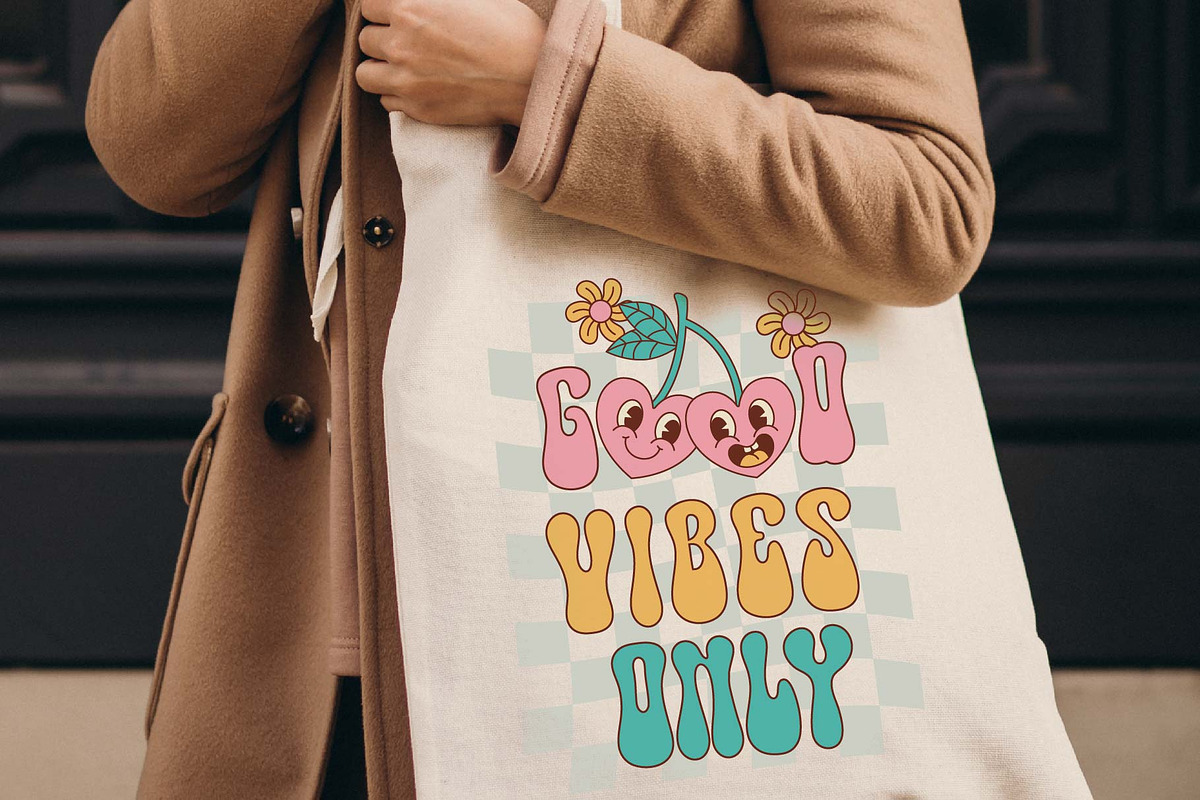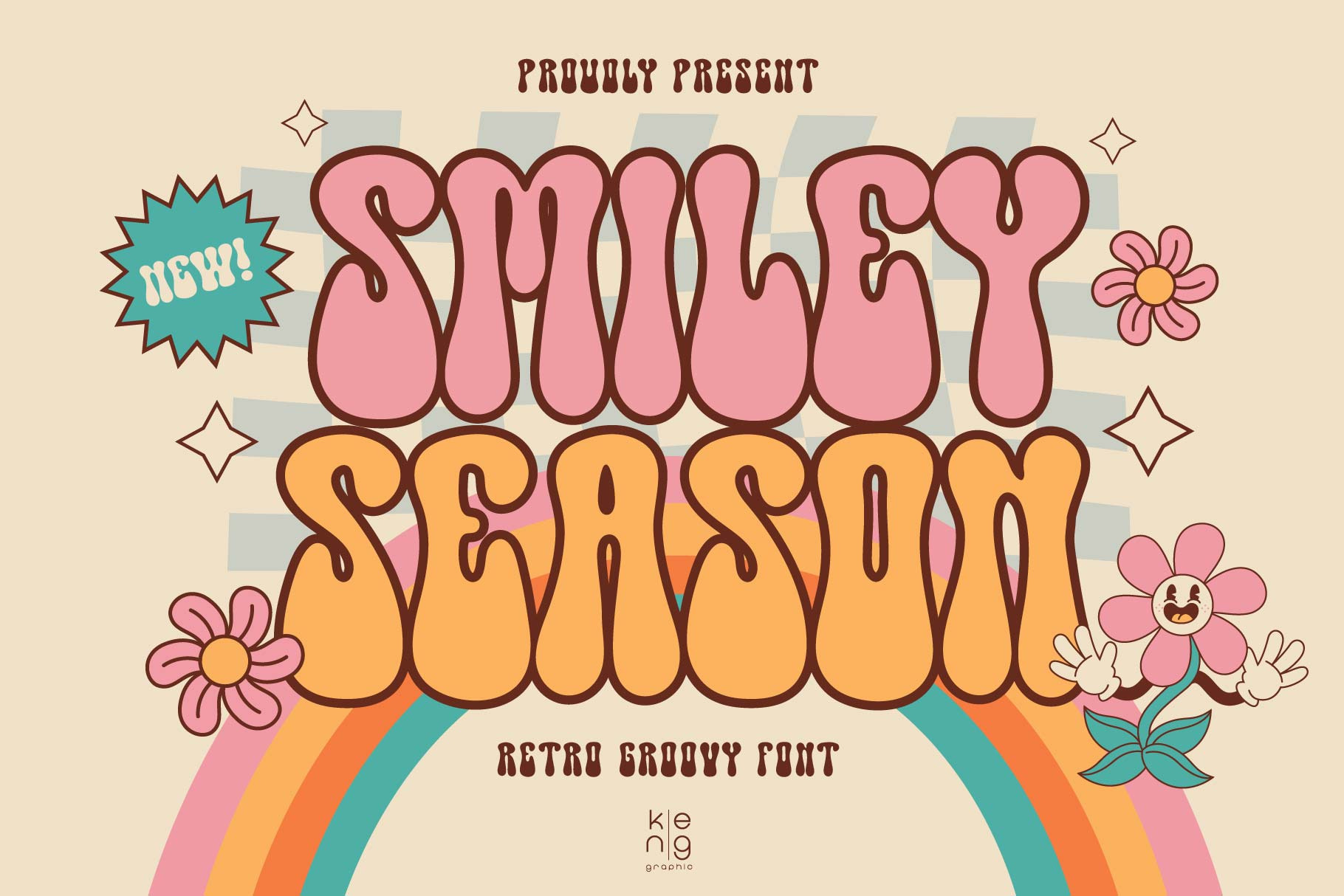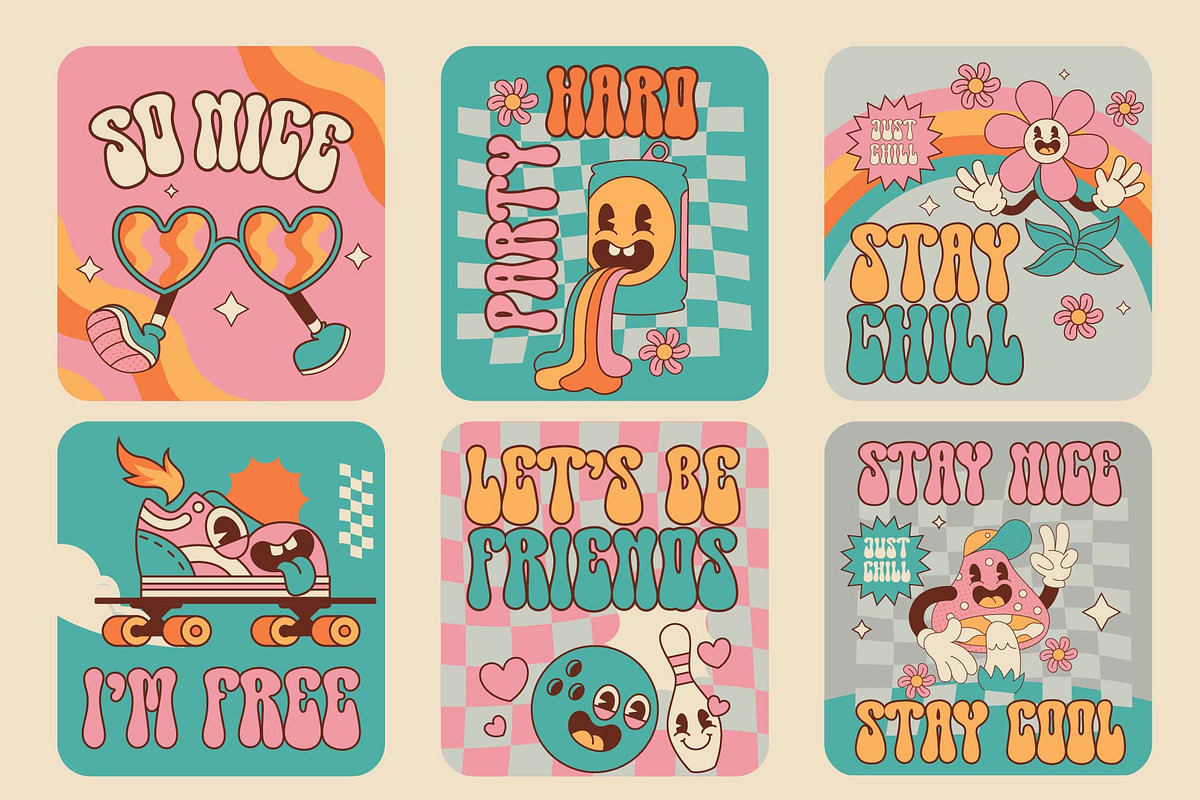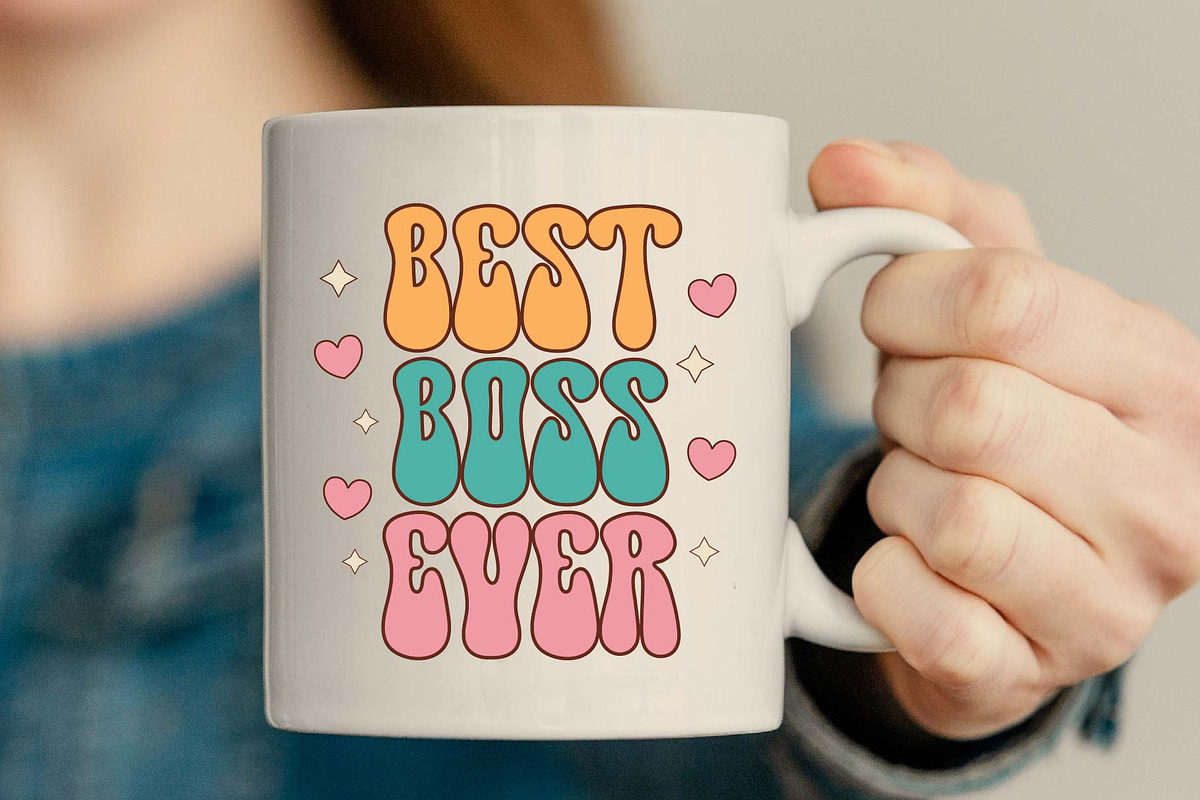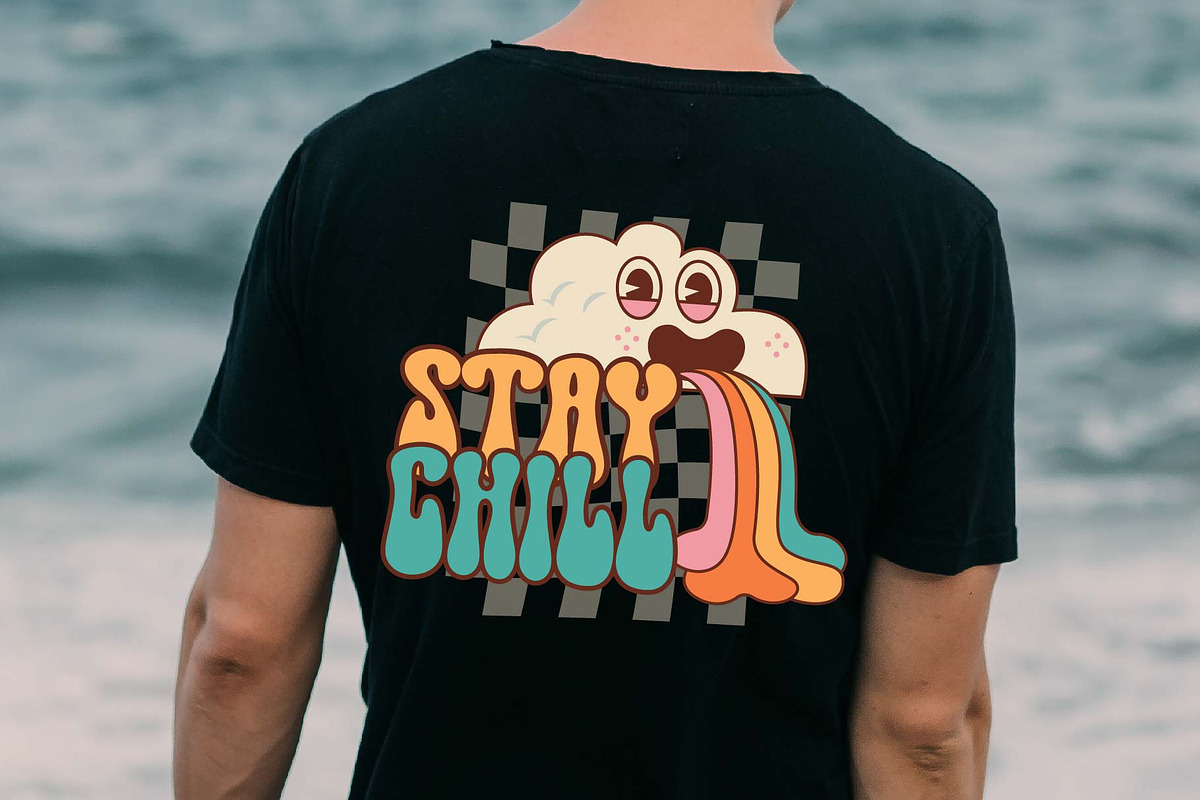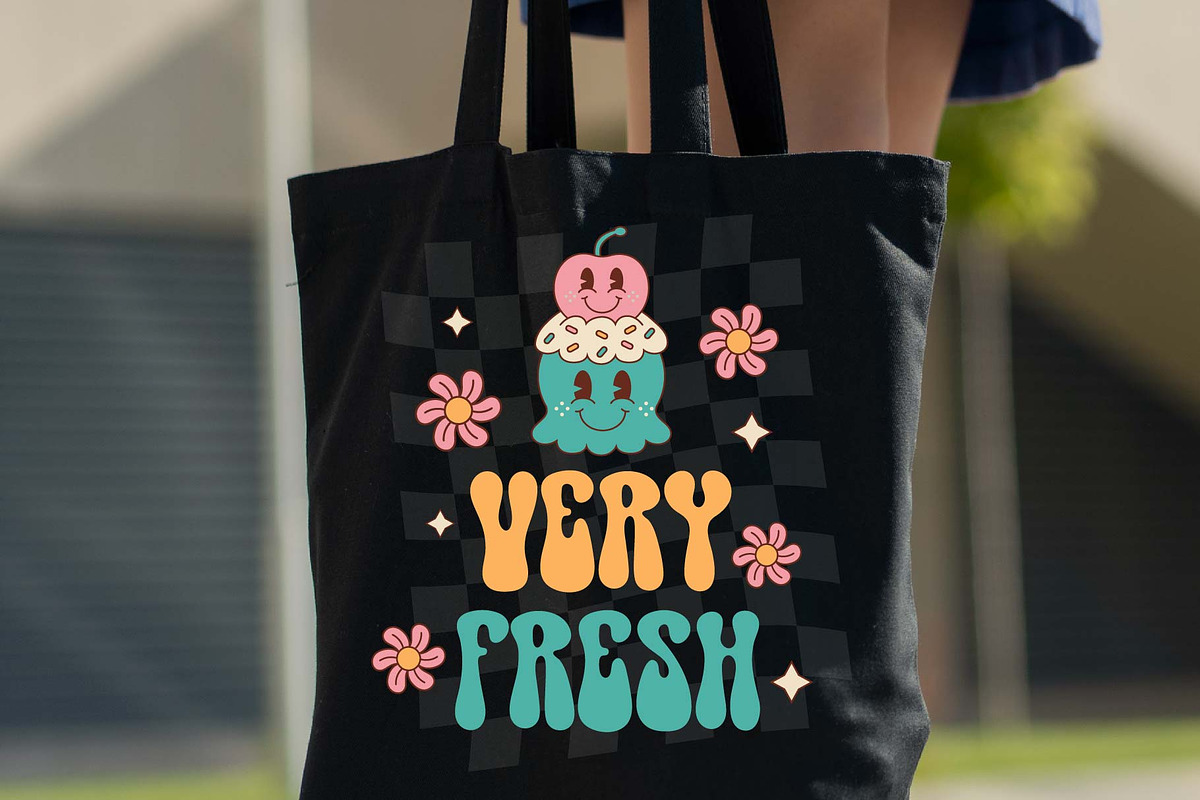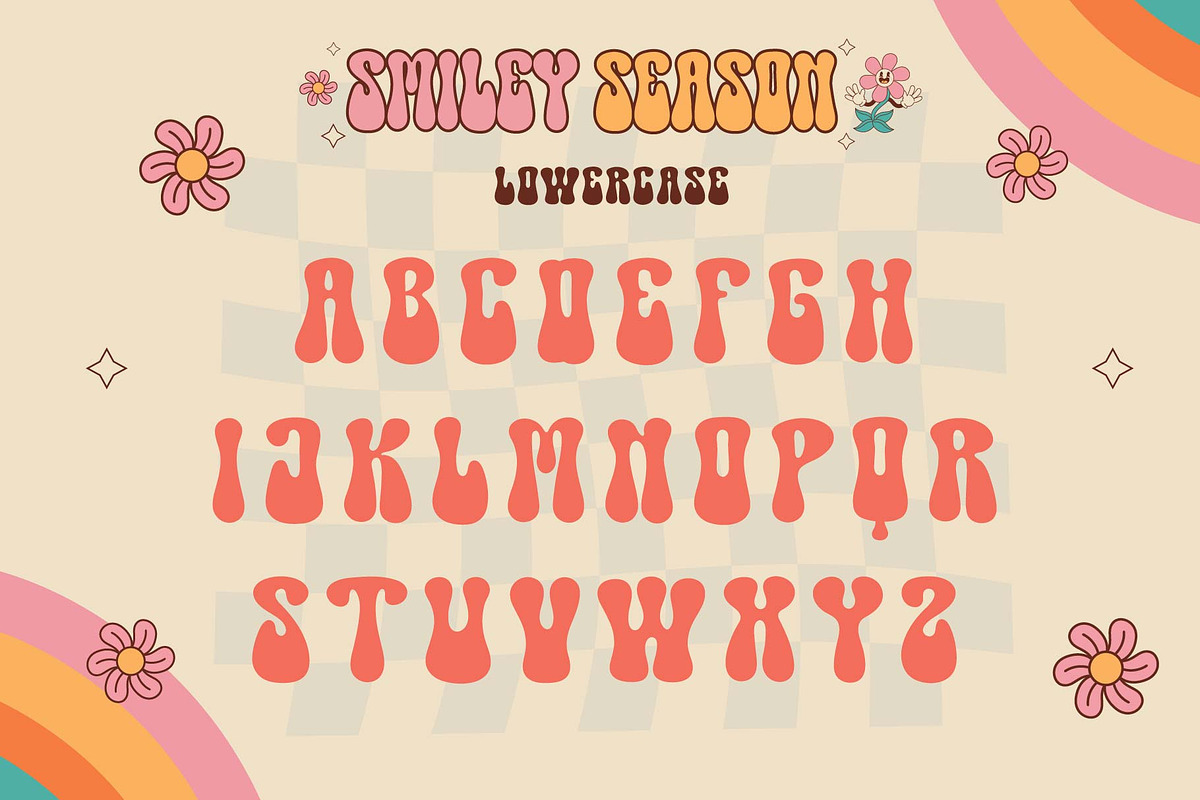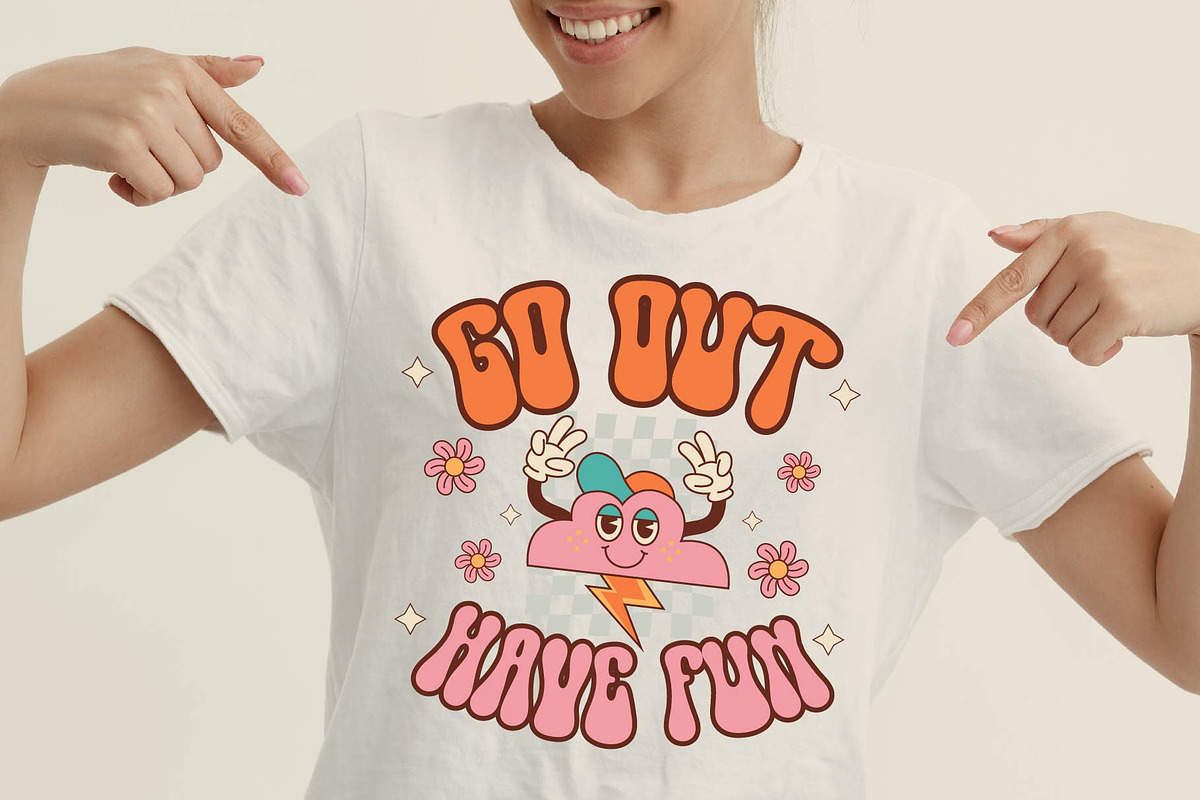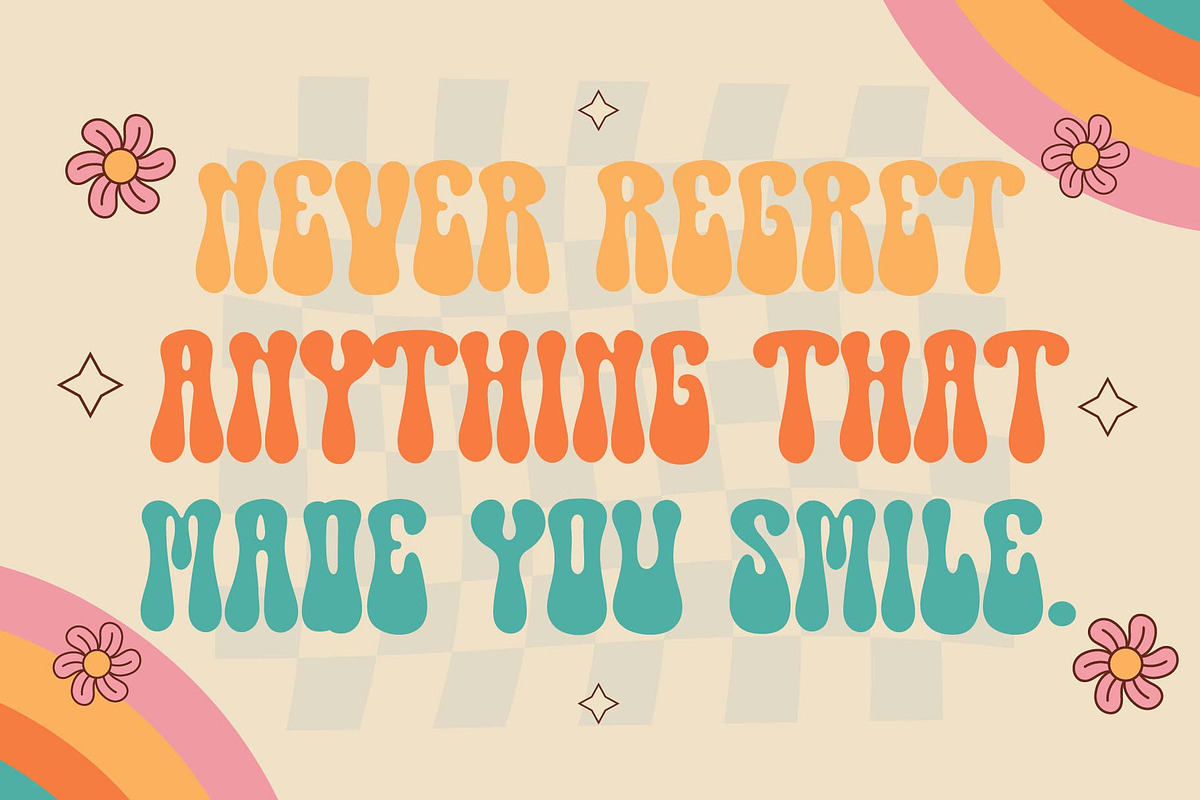
Smiley Season Font
Experience a blast from the past with the Smiley Season Font, your go-to for injecting a touch of retro into your designs. As groovy and intriguing as its name, this whimsical, vintage-inspired typography is the perfect element to add character and charm to any project, be it customized t-shirts, one-of-a-kind bags, personalized mugs, or any creation that calls for a dash of nostalgia. Amplify your creativity with the Smiley Season Font, where the old school meets the new in the most delightful way!